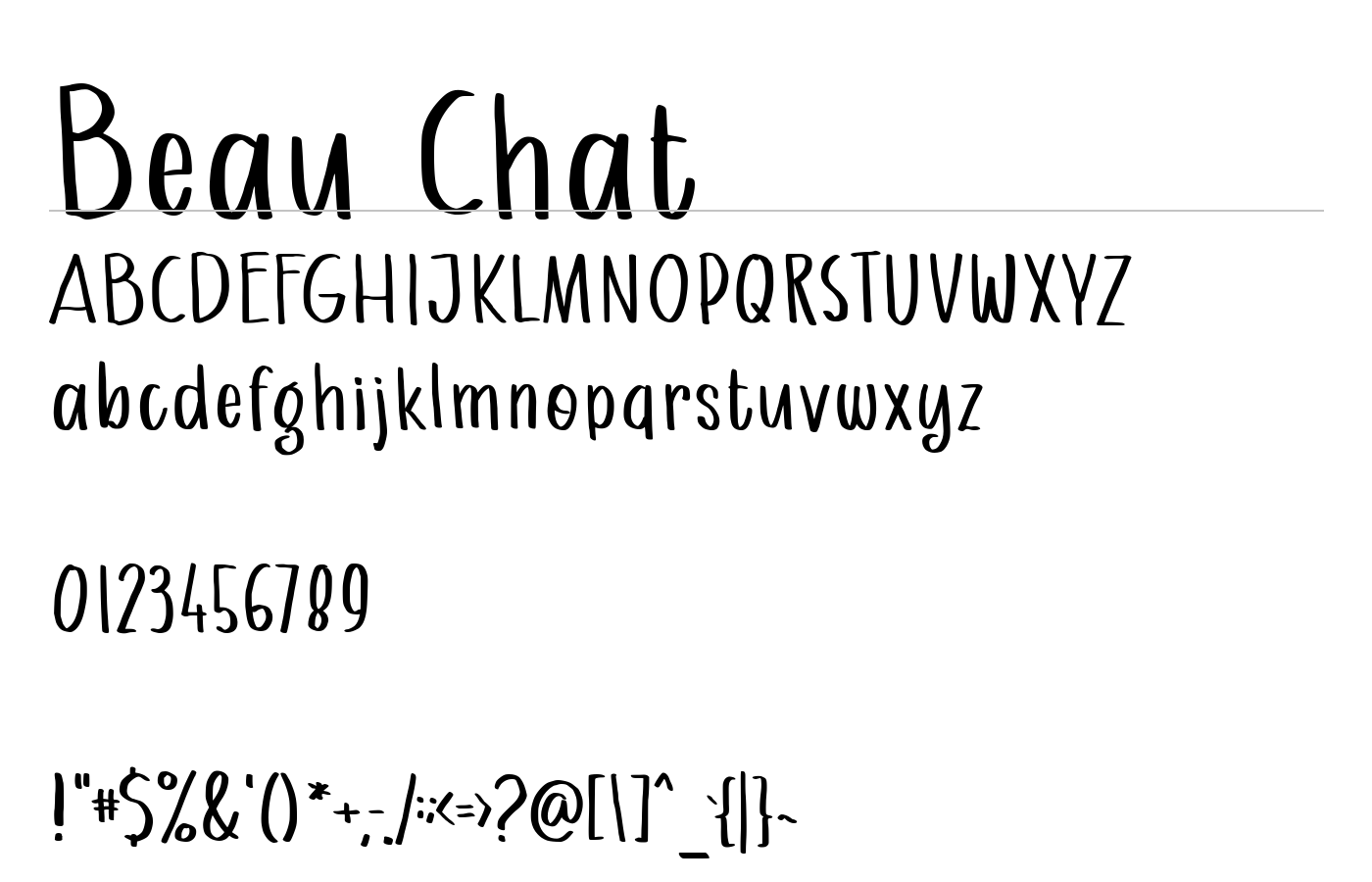
Beau Chat is a charming handwritten sans serif font featuring tall, narrow letterforms with a casual and playful feel. Its light weight and slightly irregular strokes give it a friendly, approachable vibe, making it ideal for creative projects, informal branding, and fun editorial uses. This font works well where a personal touch or youthful energy is desired, such as in logos, posters, and packaging.
Beau Chat Font
About Beau Chat Font